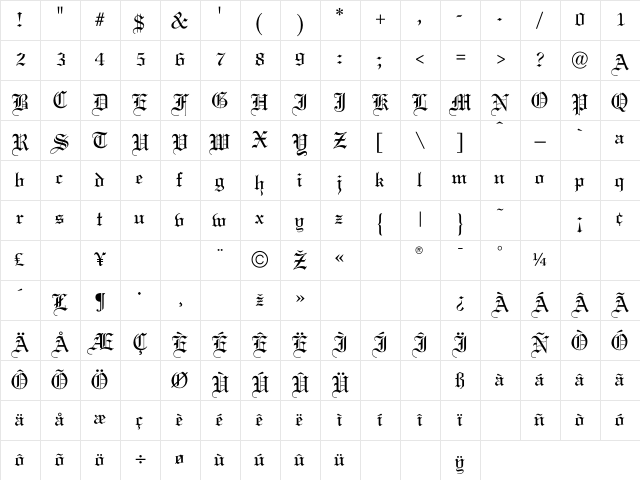
WeddingText Regular Free Font
WeddingText Regular
Foundry: Digitized by Dan X. Solo. Software Dover Publications, Inc
Design Context for WeddingText
WeddingText is a composed and adaptable typeface that performs quietly and consistently across a wide range of design contexts.
First published in 1999, this typeface is available in OpenType (OTF) format.
Who designed the WeddingText Regular font?